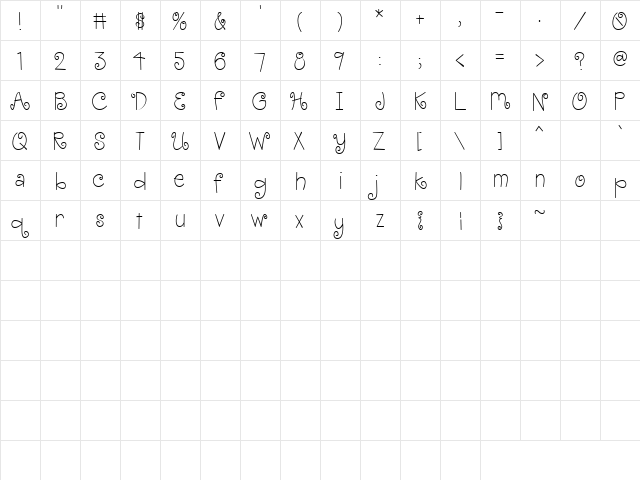
LD Cute Curls Regular
Design Context for LD Cute Curls Typeface
LD Cute Curls is a composed and adaptable typeface that performs quietly and consistently across a wide range of design contexts.